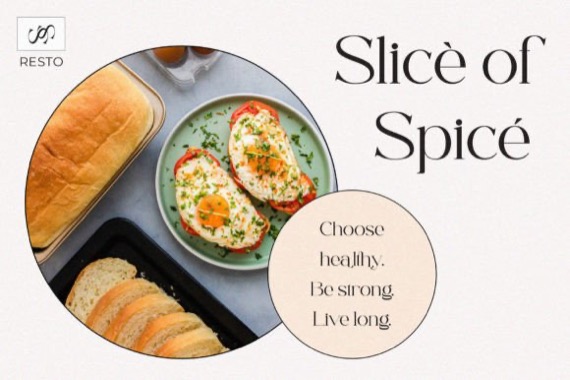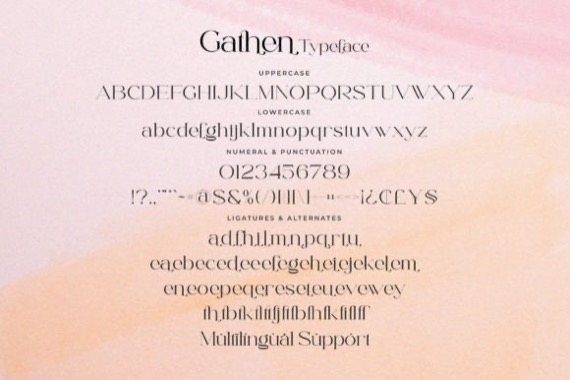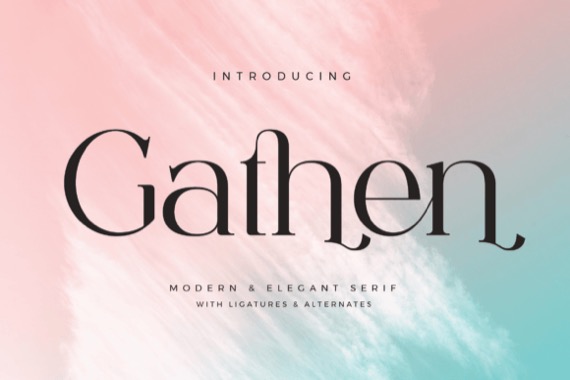
Introducing a new modern and fresh typeface from Aqeel_Art, Gathen is an elegant serif typeface, inspired by the famous minimalist logo perfect for the purposes of designing templates, brochures, videos, advertising branding, logos and more.
Gathen Serif Font
Designer, Publisher: Aqeel_Art